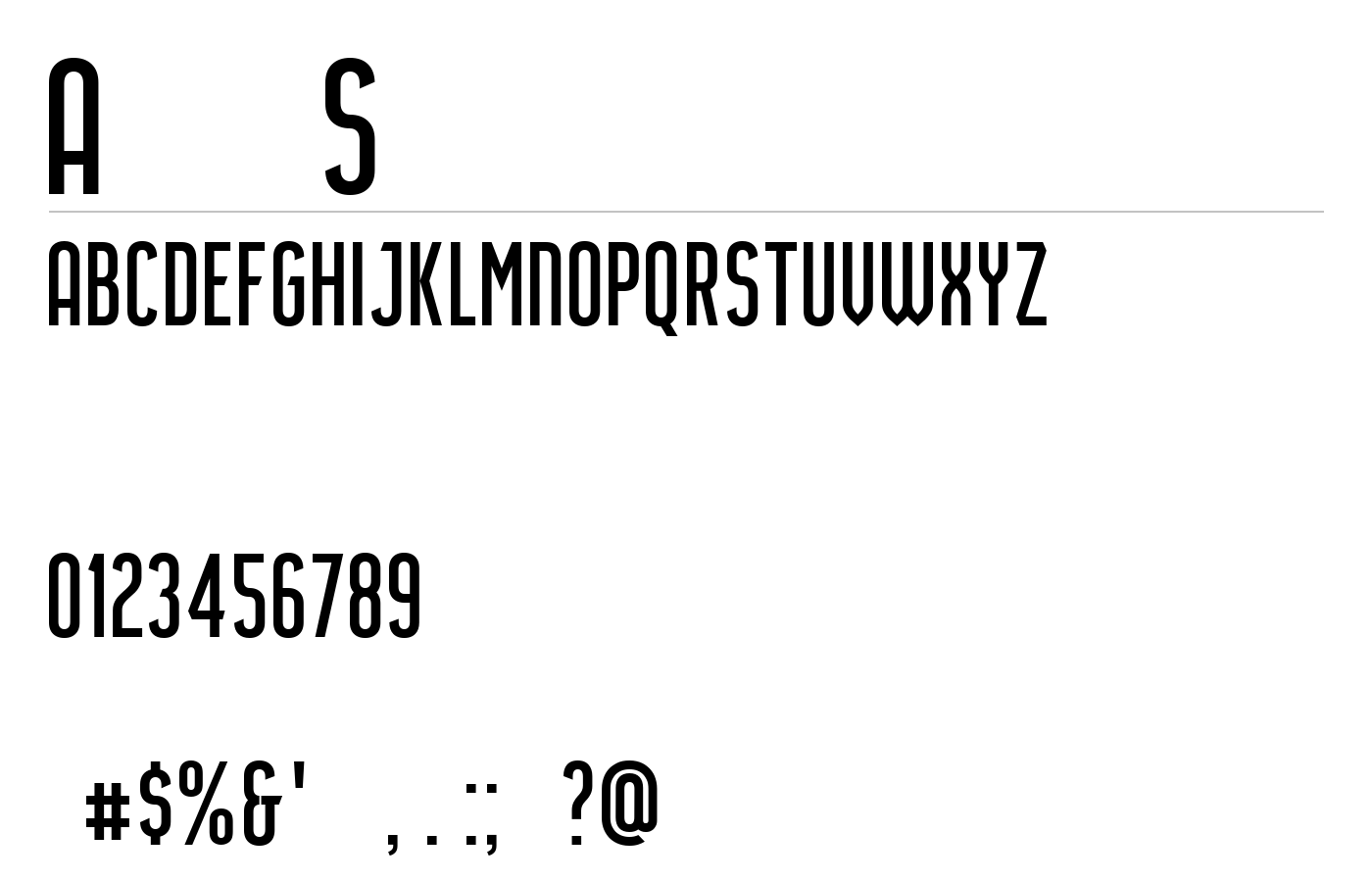
Airside Sans is a sleek, condensed sans serif font characterized by its tall, narrow letterforms and uniform stroke weight, giving it a modern and streamlined appearance. Its clean lines and geometric shapes make it ideal for impactful headlines, branding, and signage where space is limited but clarity and style are essential. This font conveys a contemporary, professional vibe suited for technology, fashion, and editorial designs seeking a bold yet refined look.
Airside Sans Font
About Airside Sans Font